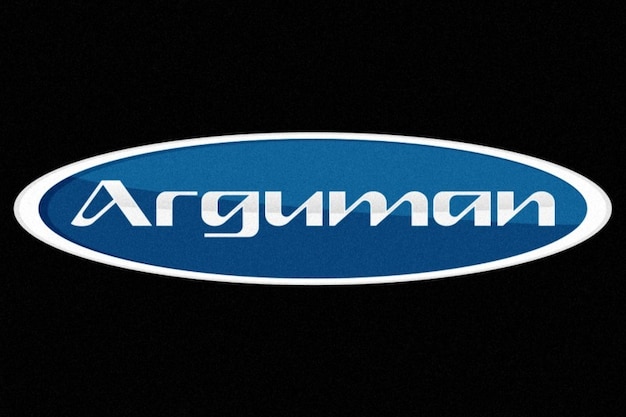
Arguman Font
The font that's tailor-made for eye-catching logos with a geometrical flair. Its letters are a symphony of flattened shapes, forming a dynamic visual statement. With every character, you're immersed in a world of bold design. 'Arguman' adds an edgy touch to your text, where each letter is a brushstroke of geometry, creating a typographic masterpiece that's as captivating as it is impactful.